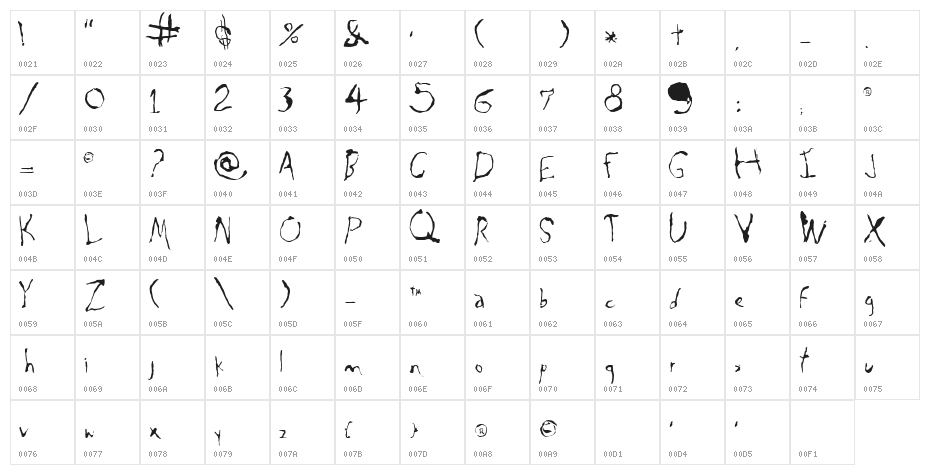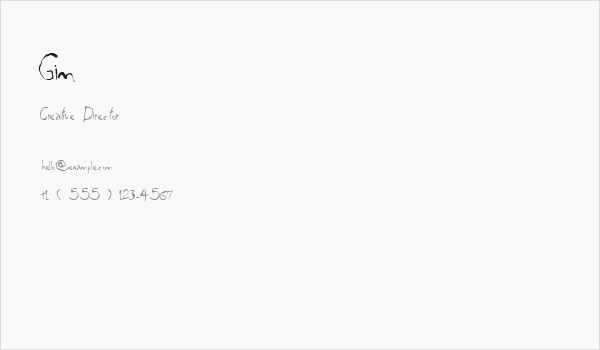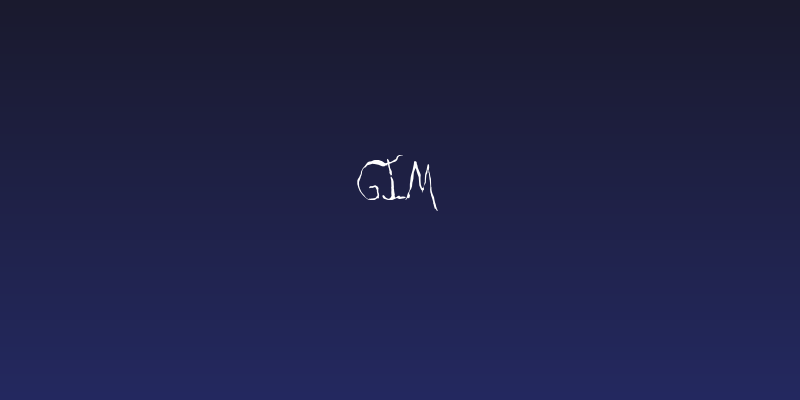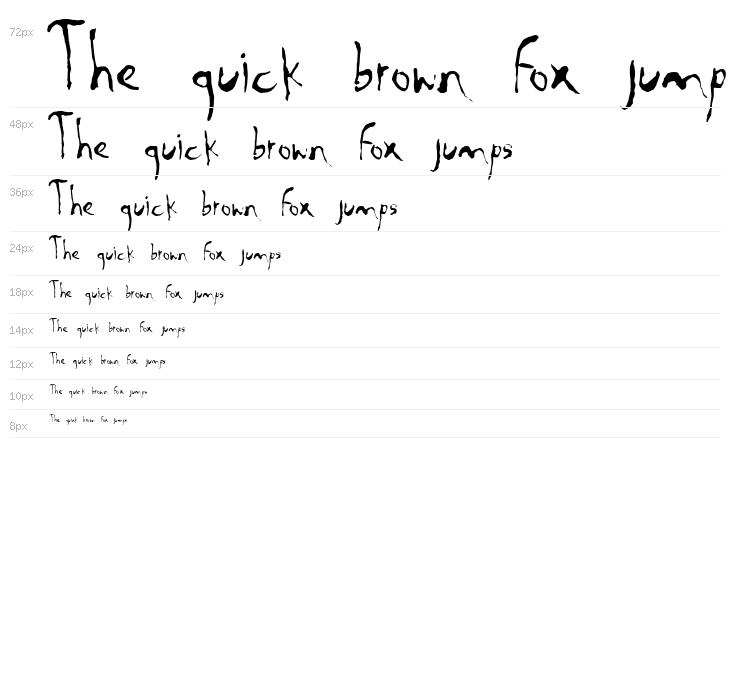
Gim Font
Gim Description
This font exhibits a highly expressive and artistic style, characterized by its irregular and organic letterforms. The strokes are uneven, with a hand-drawn appearance that suggests a sense of spontaneity and creativity. The uppercase letters are bold and dramatic, while the lowercase letters maintain a more delicate and fluid form. Numbers and special characters follow the same artistic approach, adding to the font's unique personality. The overall design is reminiscent of brush or ink work, making it stand out with its distinctive and unconventional look.
| Overall Style | Artistic, Expressive |
| Use Case | Headlines, Artistic projects, Creative branding |
| Proposed Projects | Ideal for artistic projects, album covers, posters, and creative branding that seeks to convey a sense of individuality and creativity. |